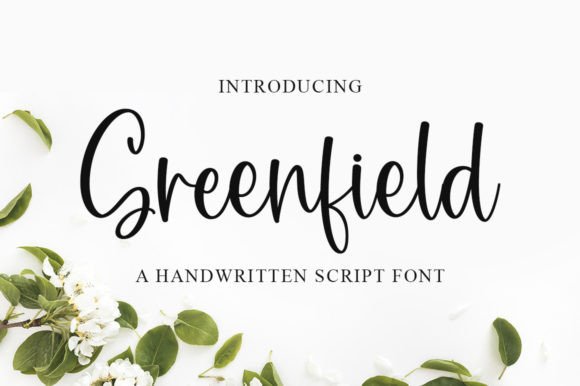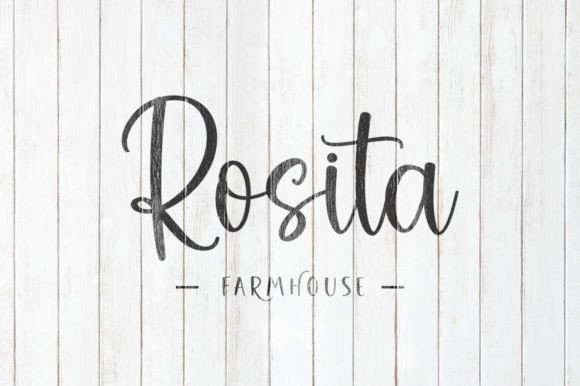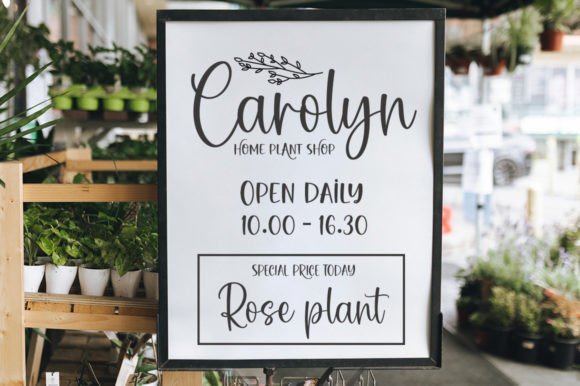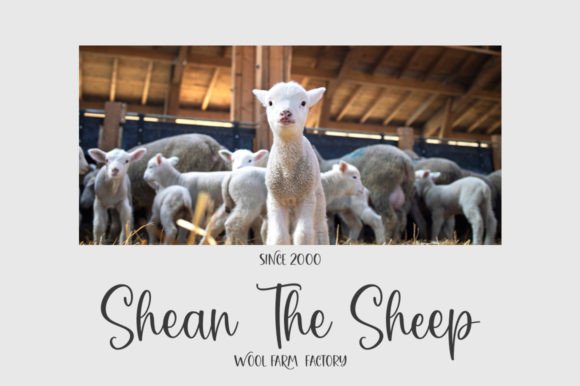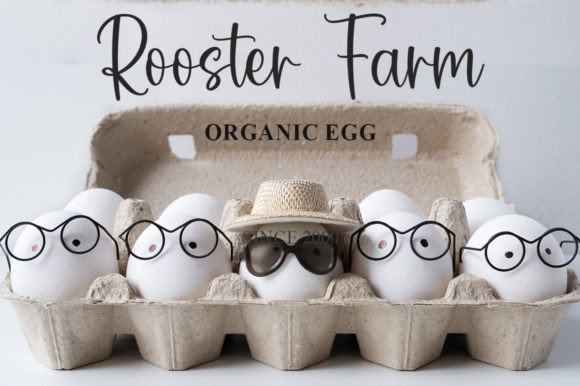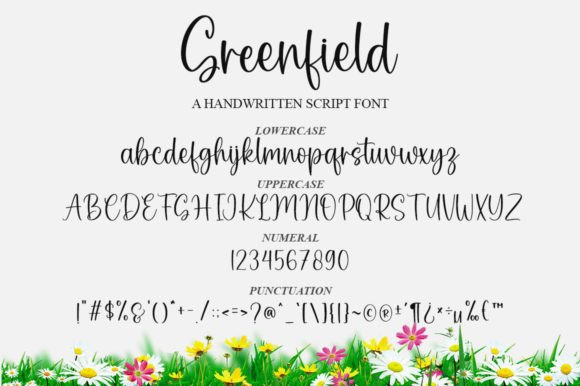
Greenfield Font
About Greenfield Font
“Greenfield” is a delicate and refined script font that emanates sophistication and elegance. The font’s stylish alternates and ligatures enhance its visual appeal, making it a perfect match for a wide range of design projects.
The delicate strokes and well-crafted characters of “Greenfield” contribute to its overall sense of refinement. Whether you’re working on invitations, branding materials, or any creative project, the font’s elegance is sure to add a touch of sophistication.
The inclusion of alternates and ligatures in “Greenfield” provides designers with additional flexibility and creative possibilities. These features allow for varied and unique presentations of text, ensuring that your designs stand out with a personalized and stylish touch.
“Greenfield” adapts seamlessly to different design contexts, making it suitable for a variety of applications where a refined script font is desired. Its versatility makes it an excellent choice for projects ranging from formal invitations to upscale branding materials.
In summary, “Greenfield” is not just a font; it’s a design asset that brings delicacy, sophistication, and creative versatility to your projects. With its refined script, stylish alternates, and ligatures, “Greenfield” stands as a perfect choice for designers seeking to elevate their designs with a font that exudes elegance and offers a range of creative possibilities.